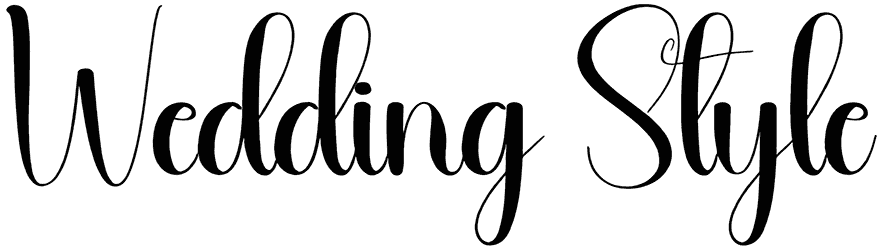
Wedding Style Font
Beautify your novel design of a wedding card with this delicate handwritten font and be impressive. The Wedding Style font’s letters are soft and adorable, and you can count on them for countless projects from formal to…
Beautify your novel design of a wedding card with this delicate handwritten font and be impressive. The Wedding Style font’s letters are soft and adorable, and you can count on them for countless projects from formal to informal ones. Test this wedding font for your new idea and see how cute it will be.
this is a sweet and friendly handwritten display font. Cute and fun, this font is ideal for writing wedding invitations, cards, or any other design that might need a playful touch!